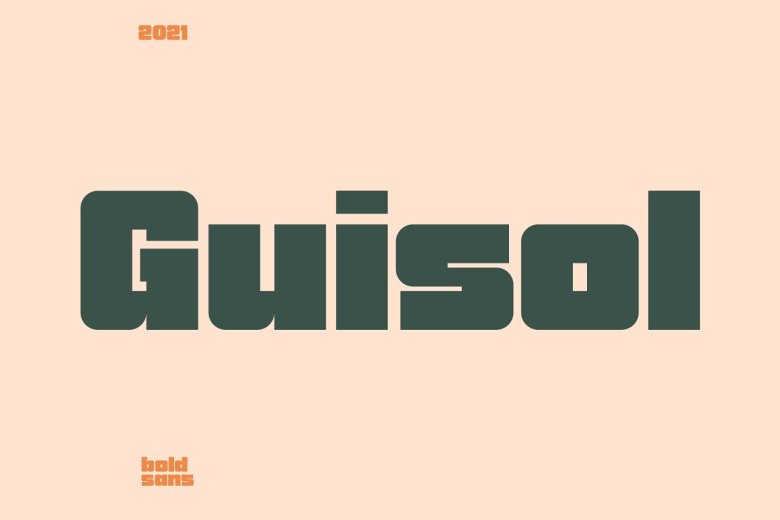
Guisol Font
Guisol is a simple bold sans serif font, with both uppercase and lowercase letters and numbers as well symboles. It still remains to be seen by old French scholars or anyone at all except the life scholar who appears in their midst, as I see it now. This font is suitable for logos, posters, label designs, and corporate branding.
Guisol Sans Serif Font